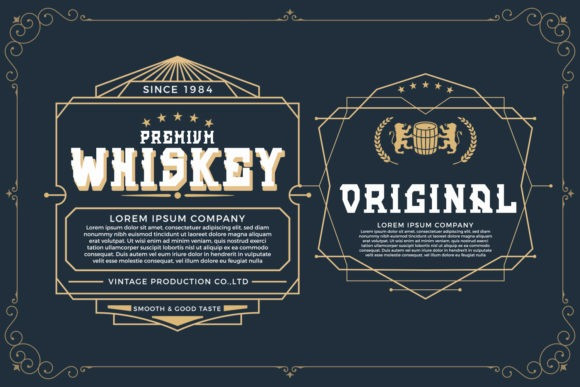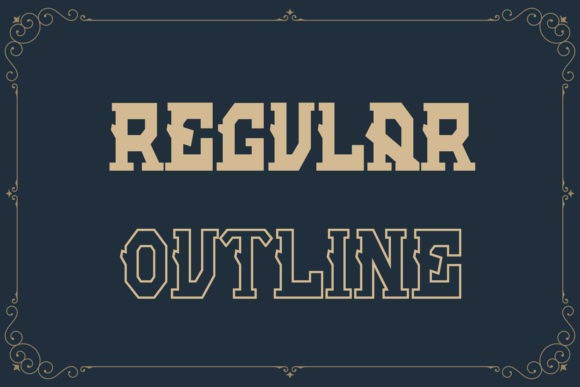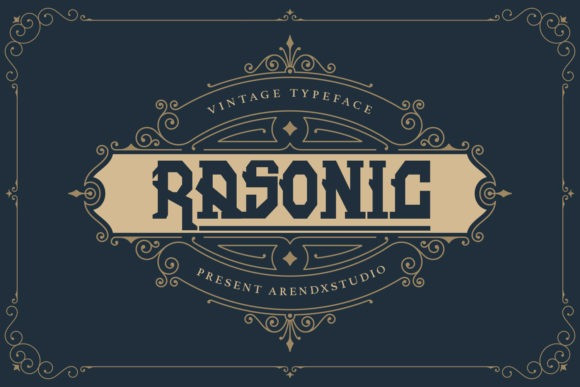
Rasonic Font
Rasonic Display Font is a great display font with a vintage look. This fantastic font is best suited for headlines of all sizes, as well as for blocks of text that have both maximum and minimum variations. Whether it’s for web, print, moving images or anything else – Rasonic will look spectacular.